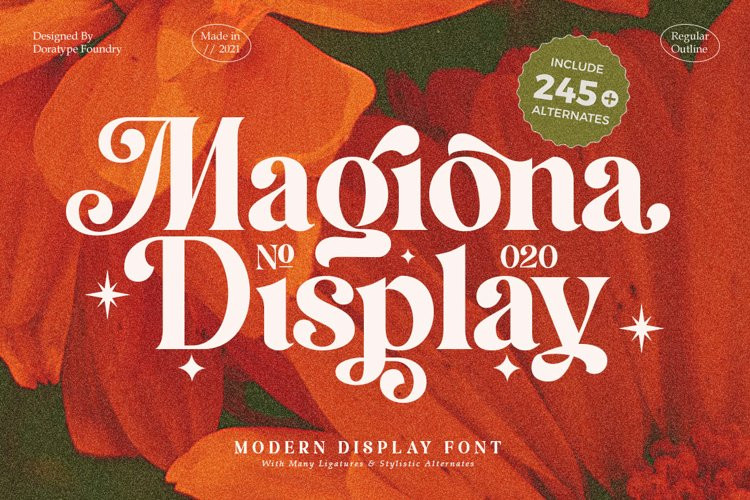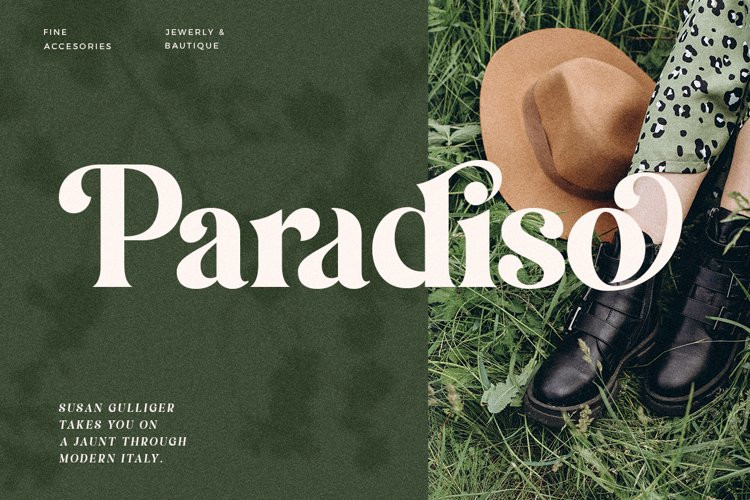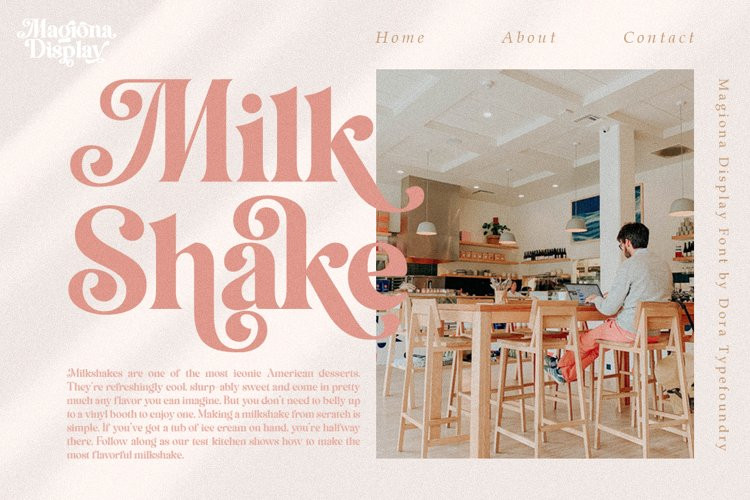
Magiona Display Font
Magiona Display FontMagiona Display – A modern classic serif font, perfect for creating bold & beautiful designs.
Magiona Display is classic and sophisticated typography with 2 weights to captivate your next project. A very versatile font that works in both large and small sizes. This font is suitable for a wide variety of projects such as: headlines, logos, labels, branding projects, magazines, homeware designs, product packaging, mugs, quotes, posters, and more. It can also be more expressive and fun, thanks to the many alternatives and binders that combine harmoniously in this font and make it more interesting and versatile. Try to change alternatives, binders and you will get many options for your project which will make it bold & beautiful.